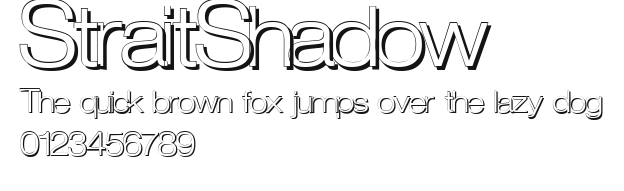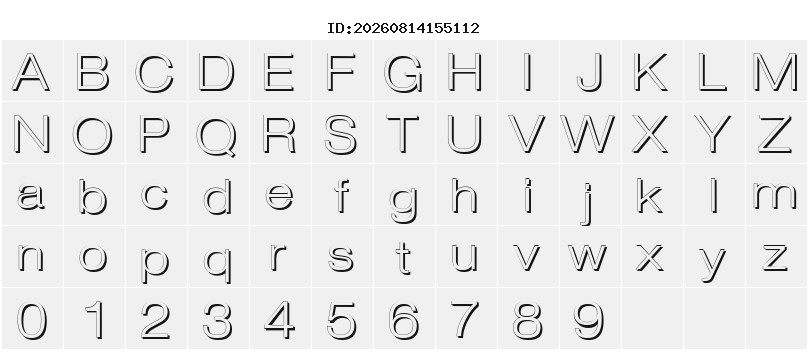
StraitShadow Preview
• Font Name: StraitShadow
• Full Font Name: StraitShadow
• Copyright: Andy Krahling, sunwalk, 2000
About StraitShadow.ttf
StraitShadow.ttf is a modern, elegant sans-serif font designed for ultimate readability and visual harmony. Perfect for branding, headlines, web design, and print materials.